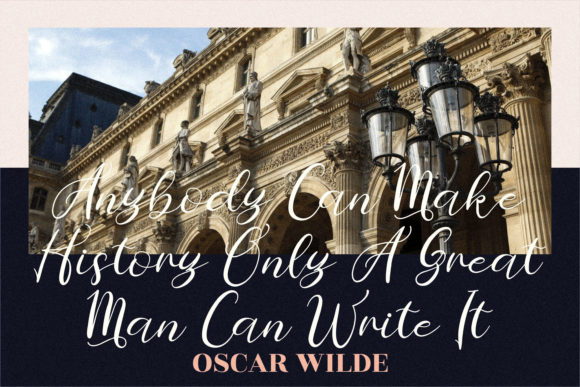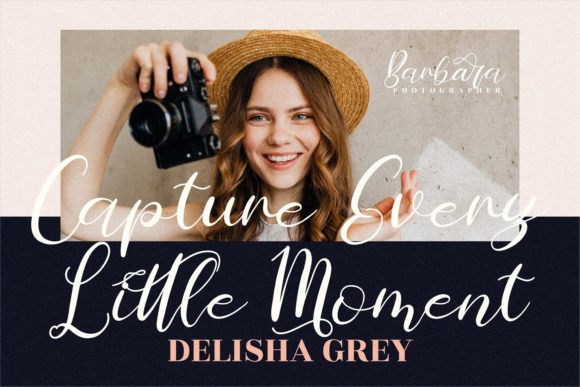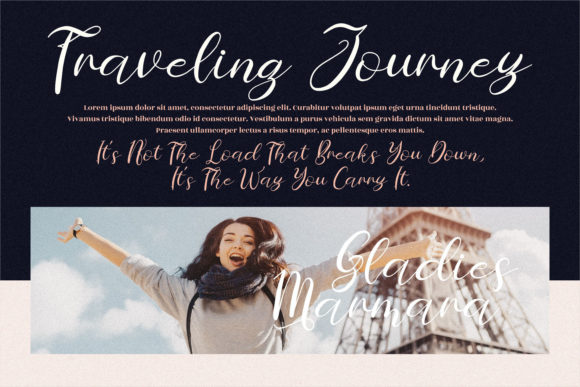
Introduction to Marira Binttang Font
Have you ever been working on a creative project and stumbled upon that perfect font that elevates your design to the next level? For many designers, that moment of discovery is what makes all the difference between a good design and a great one. And if you’re one of them, you’re in luck – we’re about to introduce you to the stunning Marira Binttang Font.
This beautiful light handwritten font is more than just a pretty face; it’s a high-quality design resource that’s sure to add a luxury spark to any project you work on. Whether you’re creating a logo, a brochure, or a social media graphic, Marira Binttang Font is the perfect choice for designers who want to add a touch of elegance and sophistication to their work.
Key Features of Marira Binttang Font
- High-quality design: Marira Binttang Font is a beautifully crafted, high-quality font perfect for any creative project.
- Transparent background: The font features a transparent background, allowing for seamless integration with any design or image.
- Unique characteristics: Marira Binttang Font boasts a distinctive, hand-drawn style with intricate details and flourishes.
- Perfect for creative projects: Marira Binttang Font is ideal for use in branding, packaging, advertising, and other creative projects where a unique, high-quality font is required.
Honest Review: Marira Binttang Font
I recently stumbled upon the Marira Binttang Font and was impressed by its high quality design. This free download has quickly become a valuable design resource for my creative projects.
One of the things that stands out about this font is its unique and creative style. The Marira Binttang Font features a transparent background, making it easy to use with any background image or color scheme.
Here are some of the things that work well with this font:
- ✨ Unique and creative design
- ✨ High quality and clear typography
- ✨ Transparent background for easy customization
However, I did notice a few limitations:
- ⚠️ Limited character set, which may not be suitable for longer text
- ⚠️ Not suitable for formal or traditional designs, due to its modern and creative style
Overall, I’m very impressed with the Marira Binttang Font. It’s a great addition to any designer’s toolkit, and I’m excited to see how it will be used in future creative projects.
Tips for Getting the Most Out of the Marira Binttang Font
Here are some tips for getting the most out of the Marira Binttang Font: Use the font in conjunction with a transparent background to create a sleek and modern design. Experiment with different font sizes and styles to add visual interest to your project. The Marira Binttang Font is a free download, making it a valuable design resource for any creative project.
The Marira Binttang Font is commonly used in a variety of design projects, including logos, brochures, and business cards. Its high-quality design and transparent background make it perfect for creating visually appealing and professional designs.
Does the Marira Binttang Font have a transparent background?
Yes, the Marira Binttang Font has a transparent background, making it easy to use with various design elements and backgrounds. This feature allows for greater flexibility and creativity in your design projects.